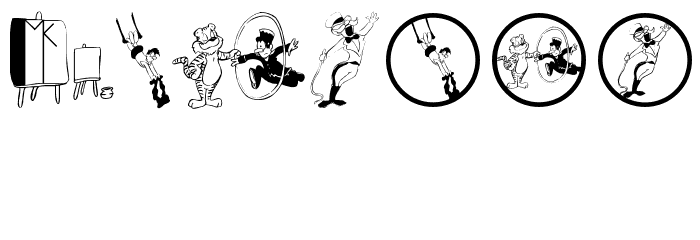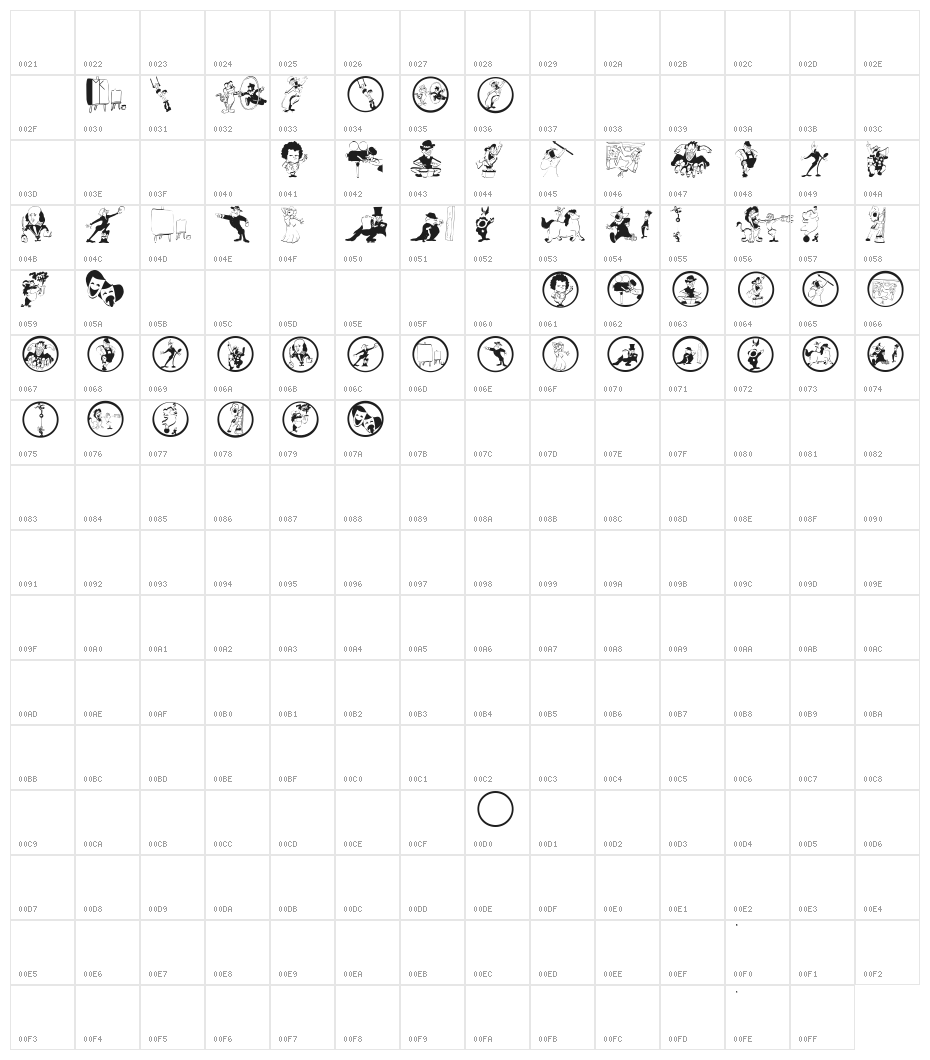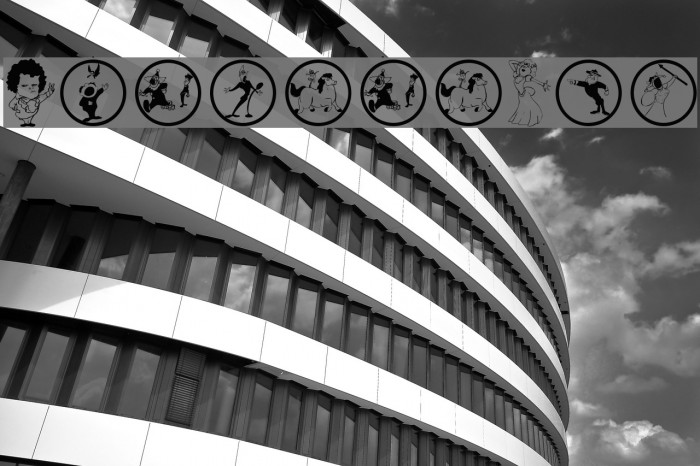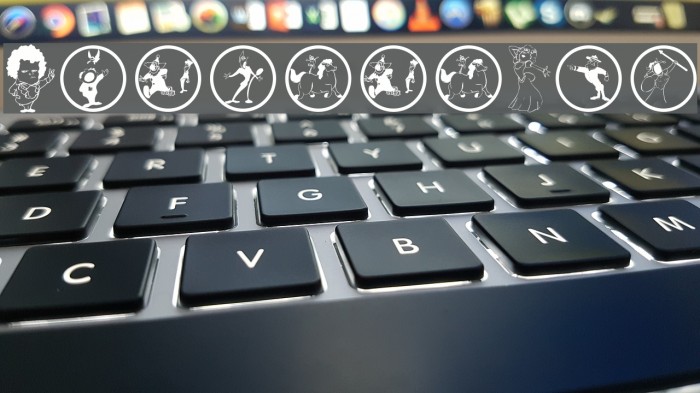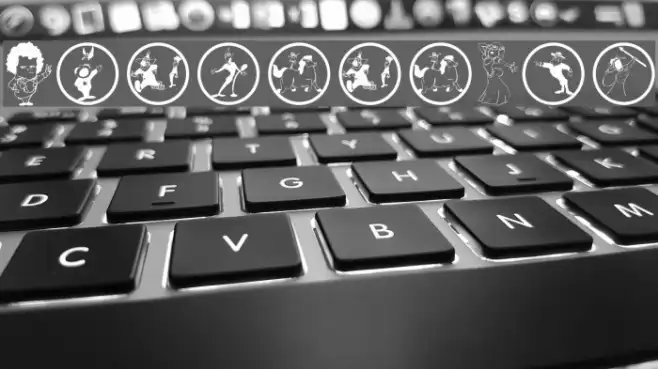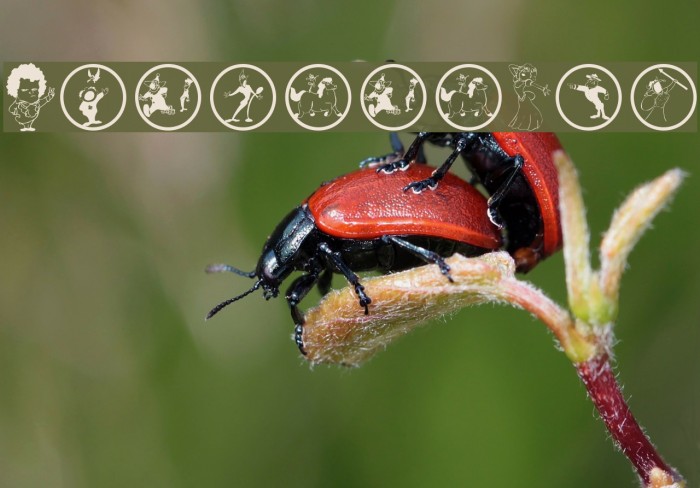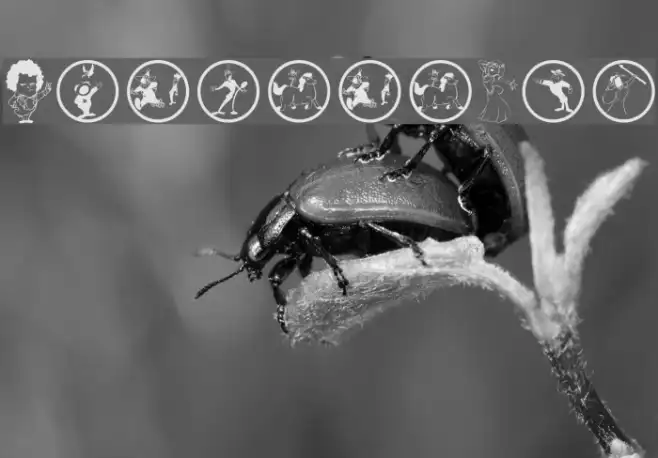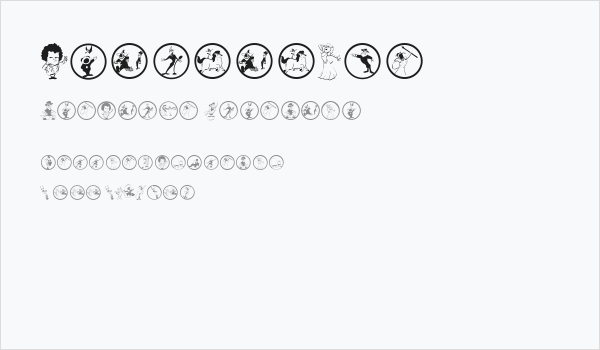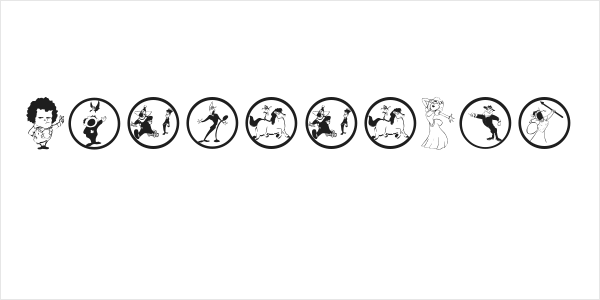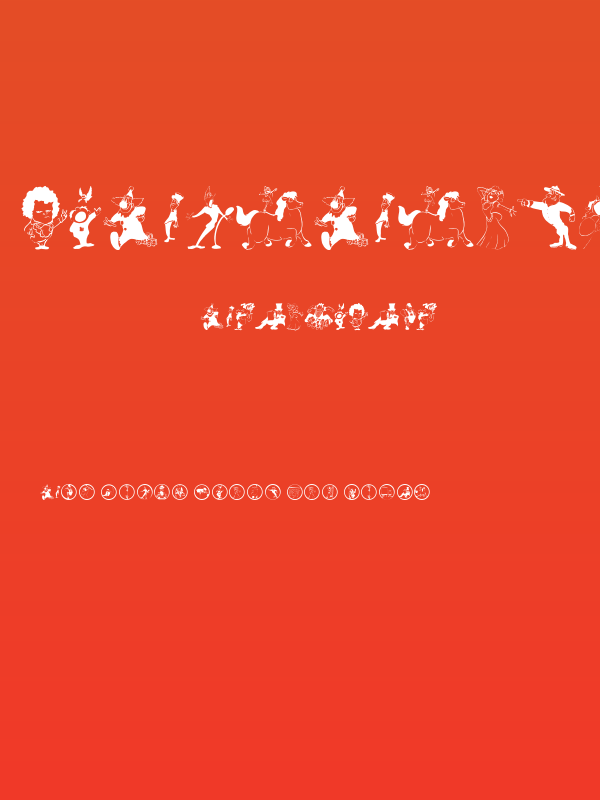
ArtistsOne Font
ArtistsOne Description
A decorative display font featuring whimsical, hand-drawn cartoon characters and theatrical scenes in place of standard alphanumeric and symbol glyphs. Each character is represented by a unique illustration, often with exaggerated expressions and playful poses, evoking a lively and artistic atmosphere.
| Overall Style | Decorative, Whimsical, Playful |
| Use Case | Headlines, Posters, Themed graphics, Logos |
| Proposed Projects | ChildrenΓ’β¬β’s books, party invitations, theater posters, comic strips, educational materials, playful branding. |